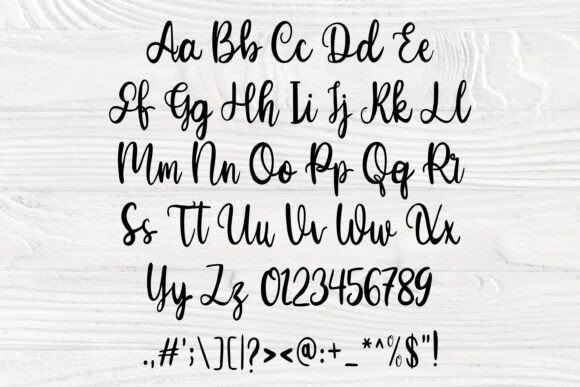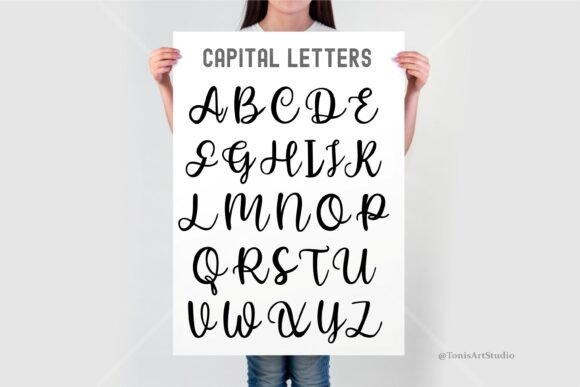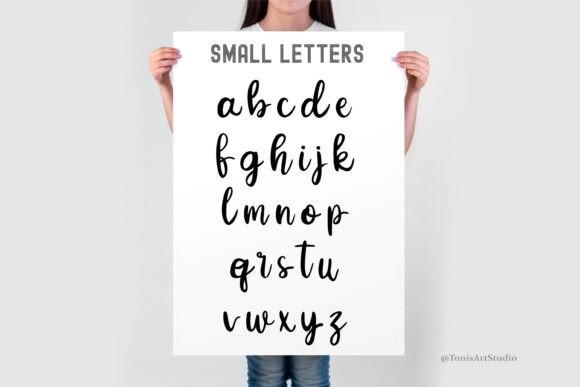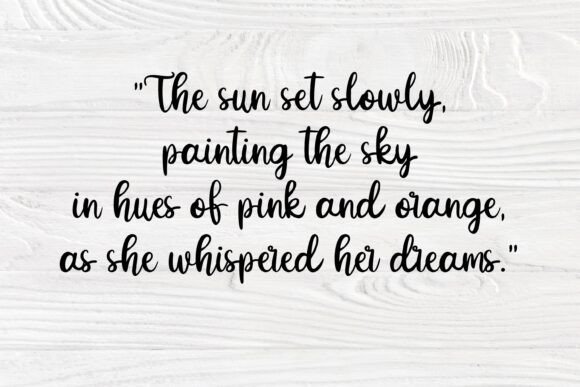
Introducing Efi Handwritten: Elevate Your Designs with a Delicate and Elegant Script Font
In the world of digital design, fonts play a crucial role in conveying the tone and personality of a project. Whether you’re a seasoned designer or a crafty DIY enthusiast, finding the perfect font can make all the difference. That’s where Efi Handwritten comes in – a beautiful, delicate, and elegant script font that’s perfect for a wide range of design projects. In this article, we’ll dive into the world of Efi Handwritten, exploring its features, benefits, and uses.
A Handcrafted Style for a Personal Touch
Efi Handwritten is a modern script font that’s been carefully crafted to bring a personal, organic feel to your designs. Its handcrafted style is evident in every curve and line, giving your projects a warm, charming look that’s sure to captivate your audience. Whether you’re designing wedding invitations, social media posts, or craft projects, Efi Handwritten is the perfect choice for adding a touch of elegance and sophistication.
Key Features of Efi Handwritten
- Delicate and Elegant: Efi Handwritten is a script font that’s both delicate and elegant, making it perfect for designs that require a touch of sophistication.
- Handcrafted Style: Each letter has been carefully crafted to give your designs a personal, organic feel.
- Wide Range of Uses: From wedding invitations to social media posts, Efi Handwritten is perfect for a wide range of design projects.
Ideal for a Variety of Design Projects
Efi Handwritten is a versatile font that’s suitable for a variety of design projects, including:
- Wedding Invitations: Add a touch of elegance and sophistication to your wedding invitations with Efi Handwritten.
- Logos: Use Efi Handwritten to create a unique and memorable logo for your business or brand.
- Stationery: Elevate your stationery designs with the warm, charming look of Efi Handwritten.
- Craft Projects: Perfect for crafty DIY enthusiasts, Efi Handwritten is ideal for a variety of craft projects, from card making to scrapbooking.
- Social Media Posts: Add a personal touch to your social media posts with Efi Handwritten, making them stand out from the crowd.
Why Choose Efi Handwritten?
With so many fonts available, why choose Efi Handwritten? Here are just a few reasons:
- Unique and Personal: Efi Handwritten offers a unique and personal touch that’s hard to find in digital fonts.
- Elegant and Sophisticated: This font is perfect for designs that require a touch of elegance and sophistication.
- Versatile: Suitable for a wide range of design projects, Efi Handwritten is a versatile font that’s sure to become a favorite.
| Font Name | Efi Font |
| Author | TonisArtStudio |
In conclusion, Efi Handwritten is a beautiful, delicate, and elegant script font that’s perfect for a wide range of design projects. Its handcrafted style brings a personal, organic feel to everything from wedding invitations to social media posts. With its ease of use, versatility, and unique charm, Efi Handwritten is sure to elevate your designs and make them stand out from the crowd. So why wait? Discover the beauty of Efi Handwritten today and take your designs to the next level!